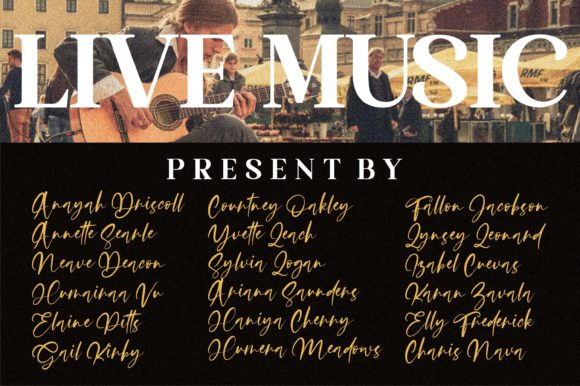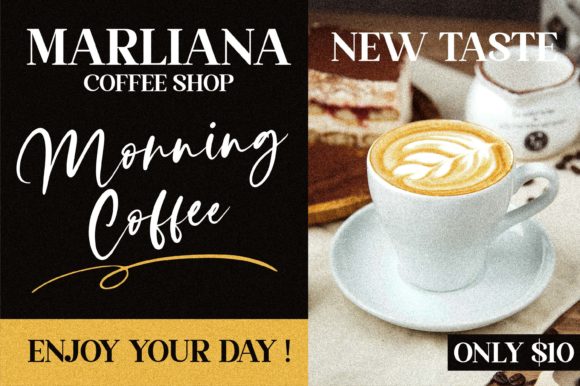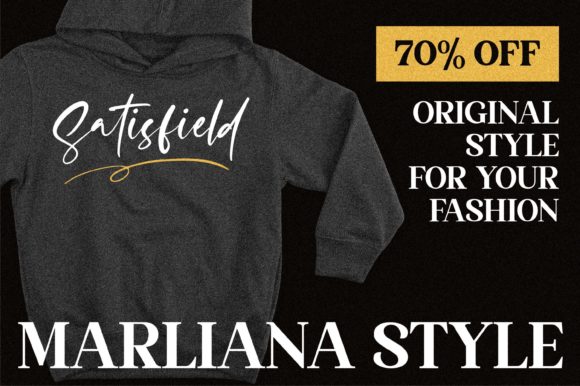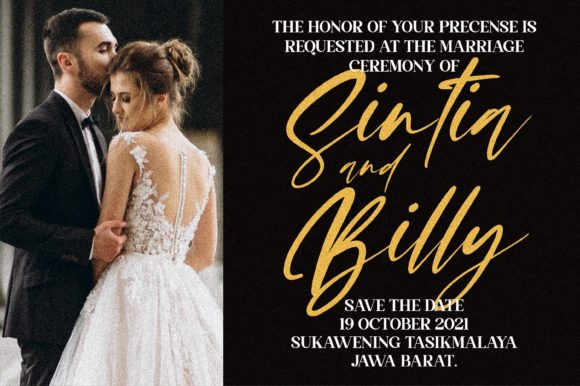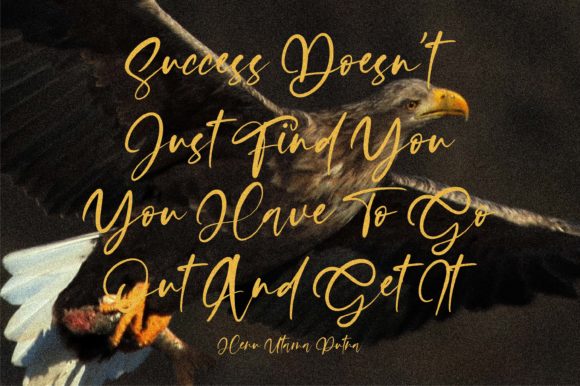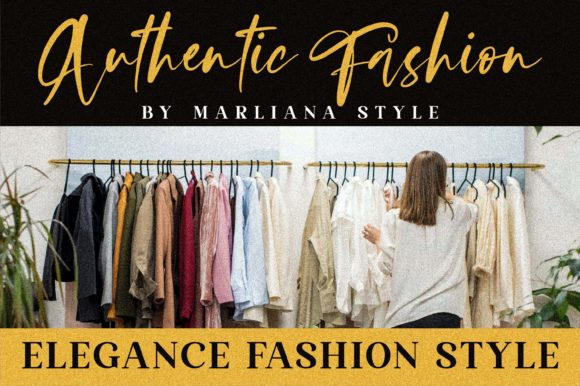
About Satisfield Font
Satisfield is a stylish and delicate paint brushed script font. It has a clean, thin and smooth vibe and it will be a hit for any design that you want to add it to.